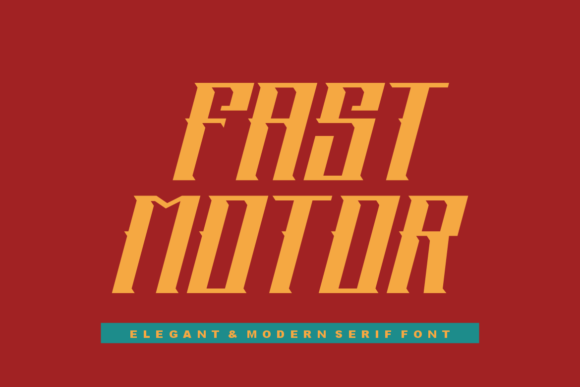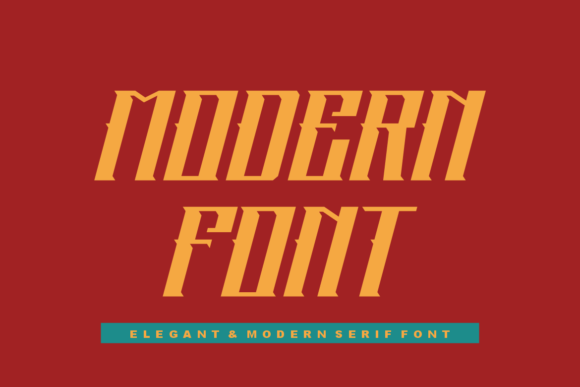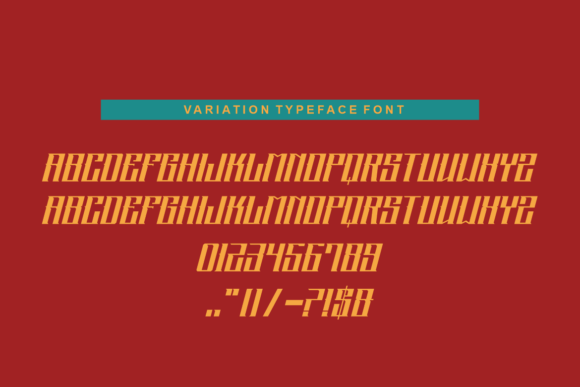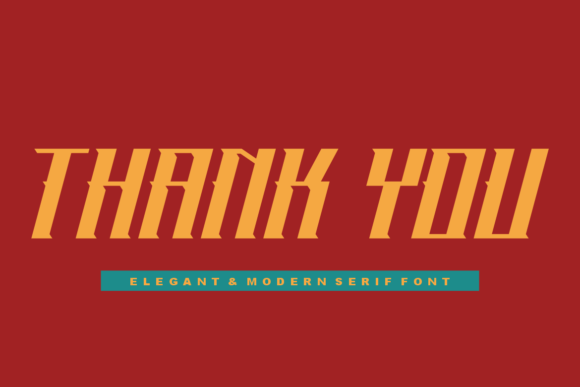
The Ultimate Guide to Gear Garage Font: Elevate Your Designs with this Modern Display Font
I’ll never forget the time I was working on a project for a client who needed a bold, modern font to capture the essence of their brand. I spent hours scouring the internet for the perfect font, but nothing seemed quite right. That was until I stumbled upon Gear Garage Font. This cool and modern display font has been a game-changer for my designs, and I’m excited to share my experience with you.
An Honest Review of Gear Garage Font
So, what makes Gear Garage Font so special? Here are a few things I love about this font:
- ✨ Unique and modern design: Gear Garage Font has a distinctive look that’s sure to make your designs stand out.
- ✅ Highly versatile: This font can be used for a wide range of projects, from logos and branding to posters and social media graphics.
- 💡 Easy to read: Despite its bold and modern design, Gear Garage Font is surprisingly easy to read, even at smaller sizes.
Of course, no font is perfect, and Gear Garage Font does have a few small quirks:
- 🤔 Limited suitability for body text: While Gear Garage Font is great for headlines and titles, it’s not the best choice for longer blocks of text.
- ⚠️ Some characters may require manual kerning: Depending on the specific characters you’re using, you may need to adjust the kerning to get the best results.
The Backstory Behind Gear Garage Font
Gear Garage Font was designed by a team of typographers who wanted to create a modern and bold font that would capture the essence of industrial and mechanical designs. The font is inspired by the shapes and lines of gears, cogs, and other mechanical parts.
| Author | cozzdesign |
| What type of font is Gear Garage Font? | Gear Garage Font is a modern display font with a bold and industrial design. |
| Is Gear Garage Font suitable for body text? | No, Gear Garage Font is best used for headlines and titles, as it may not be suitable for longer blocks of text. |